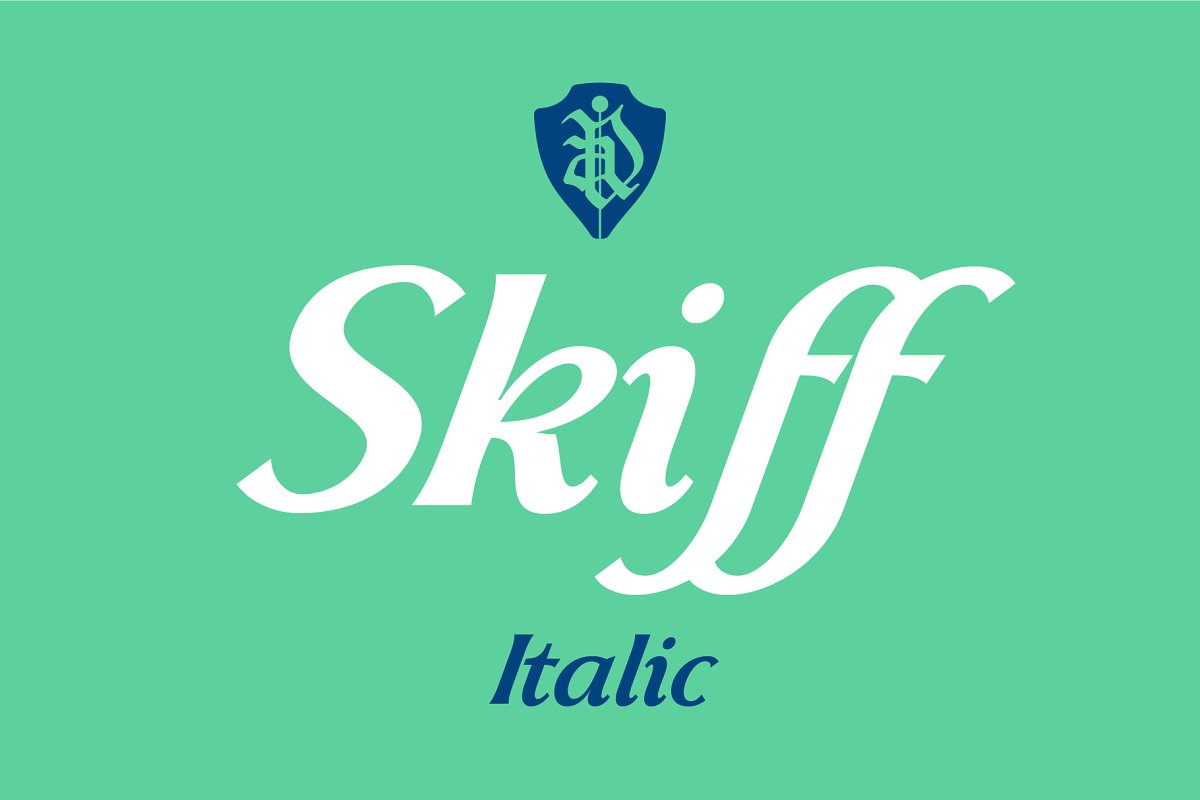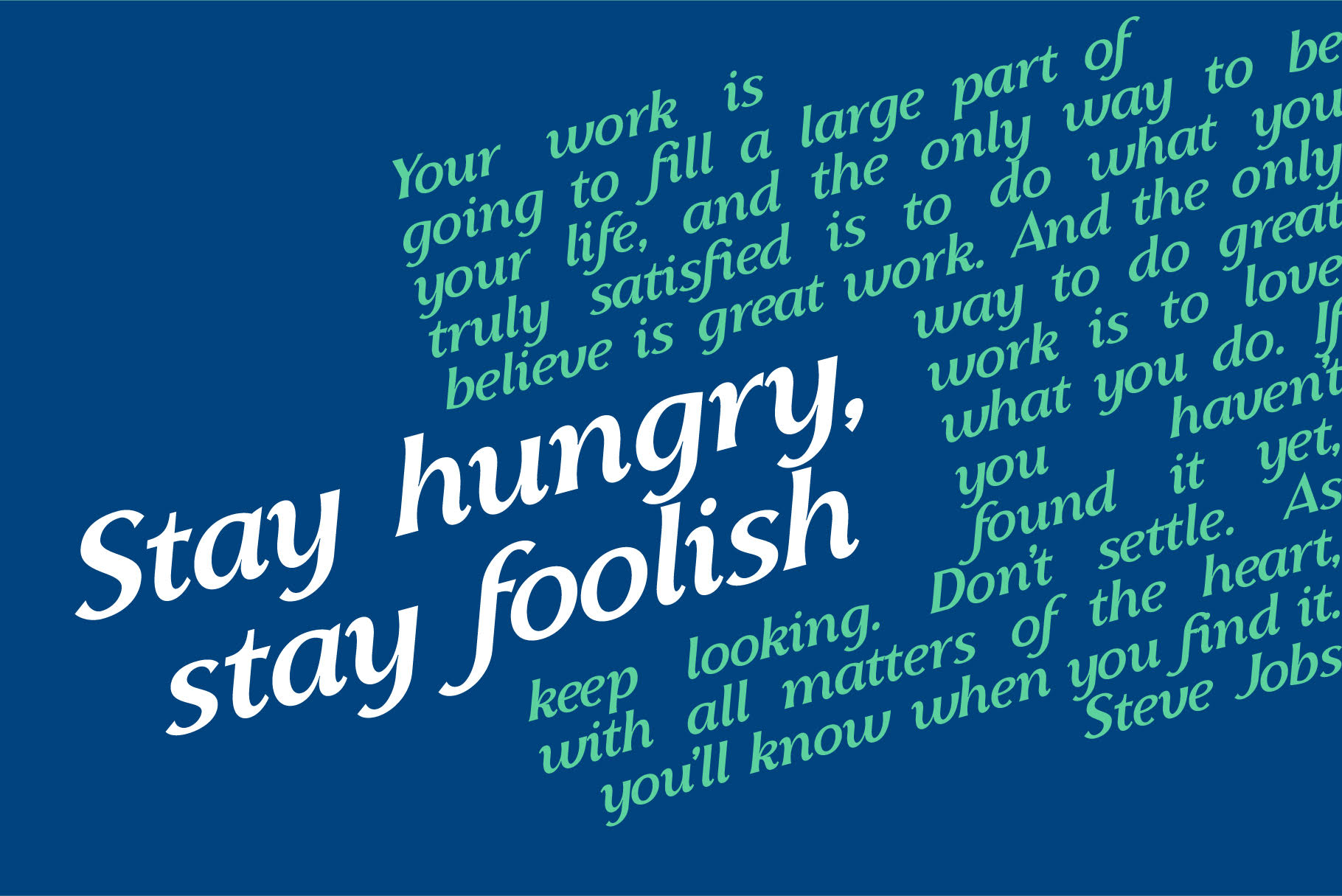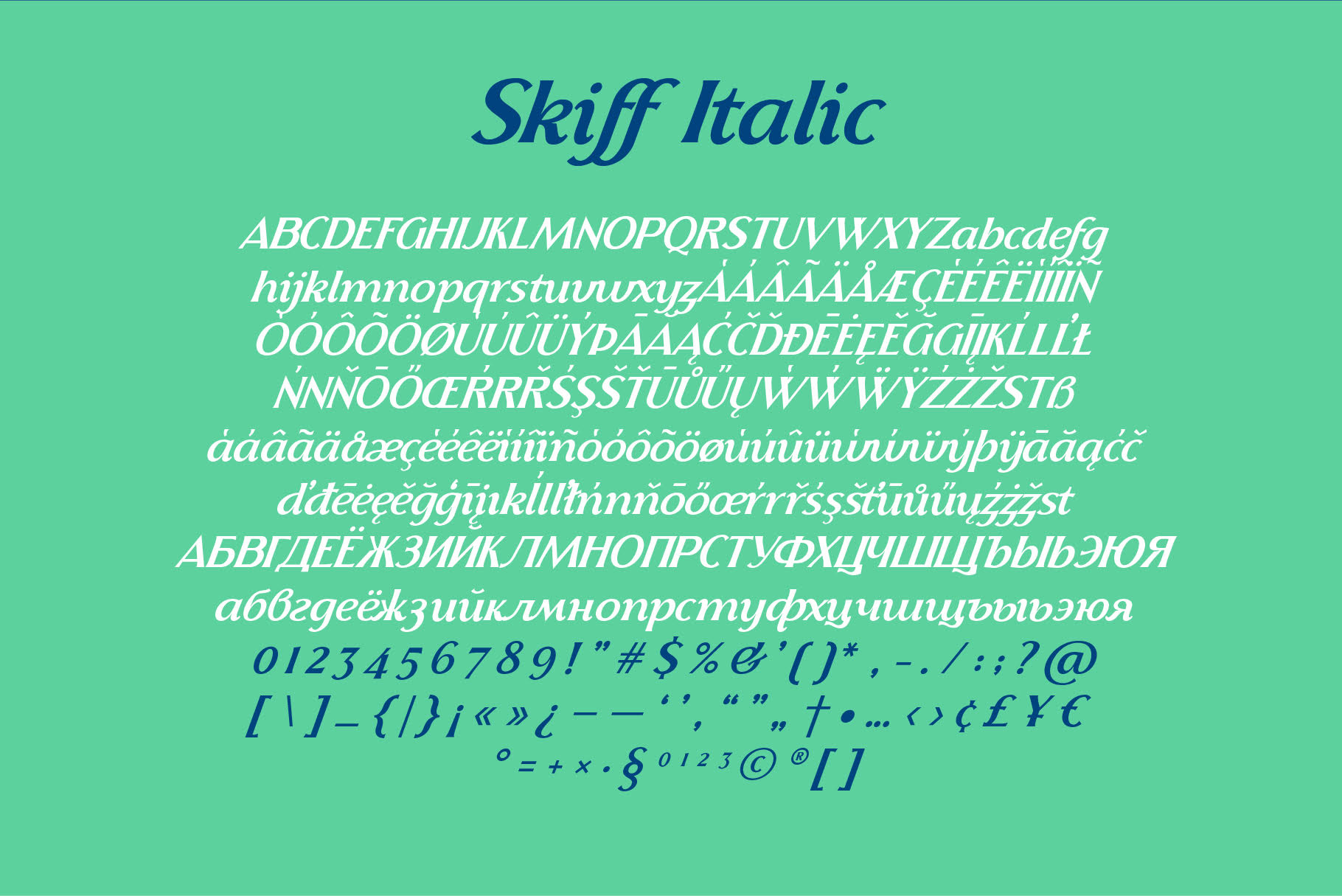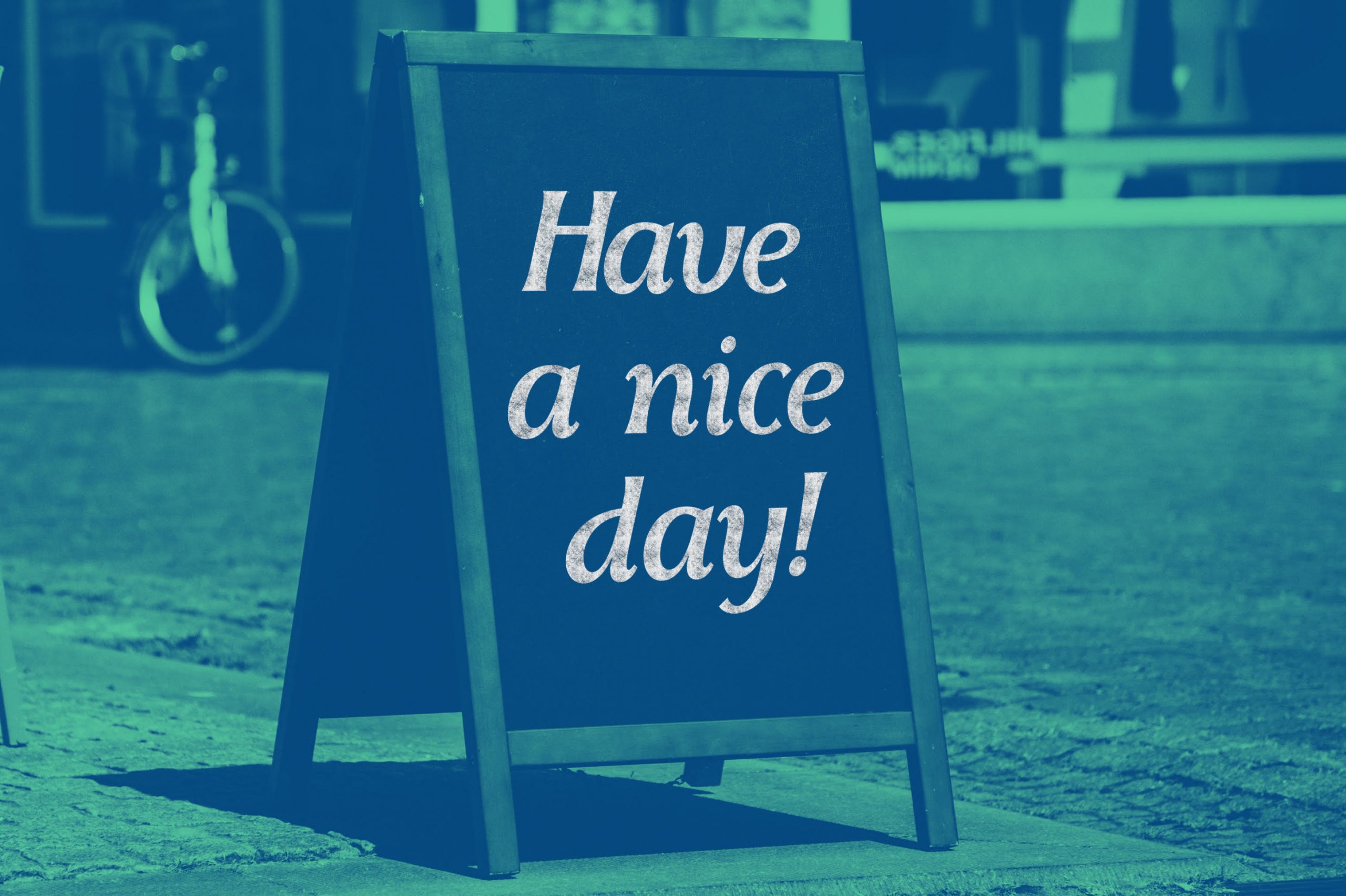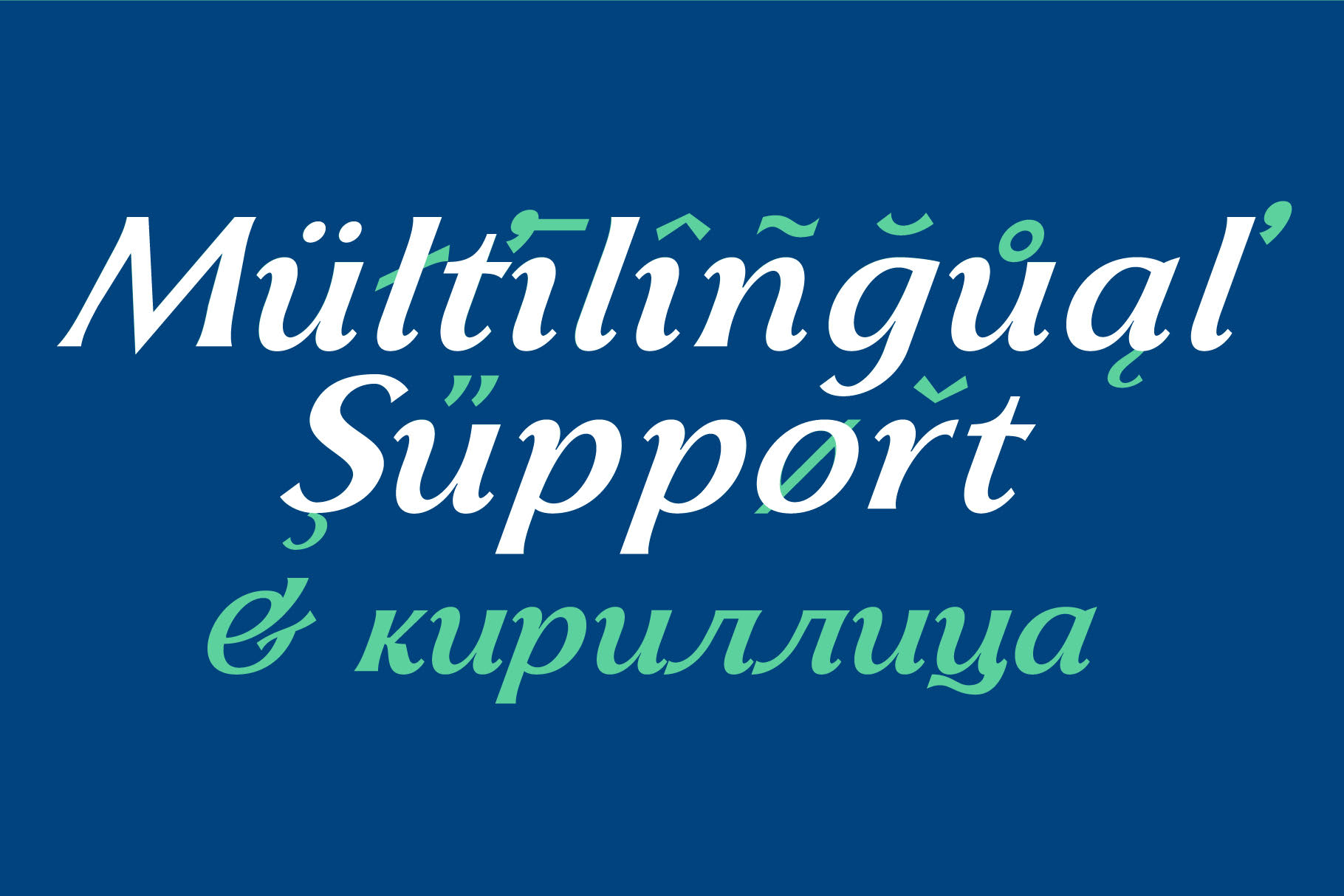
Skiff Italic
Skiff italic font is a free font for commercial use. It is a transition from modern antique fonts to sans-serif fonts. The font has medium contrast and almost serifless sharp edges, which give it a playful, classy, and a more contemporary look. Glyphs in this italic font have ink traps.
Skiff font is a modern font and can take designs to another level. It is ideal for naming, magazines, short texts, logos, branding designs, packaging, and advertising.
Supports Multi-Language